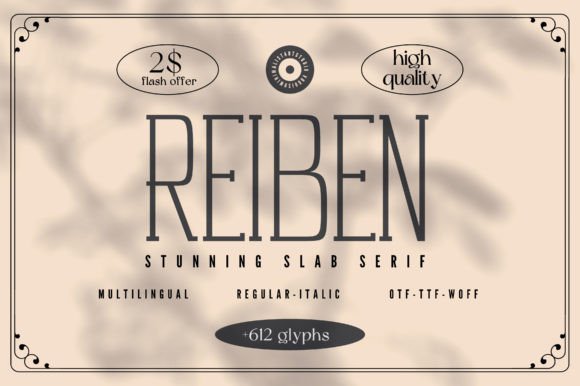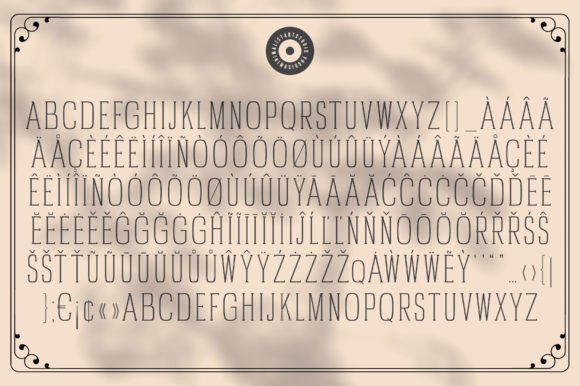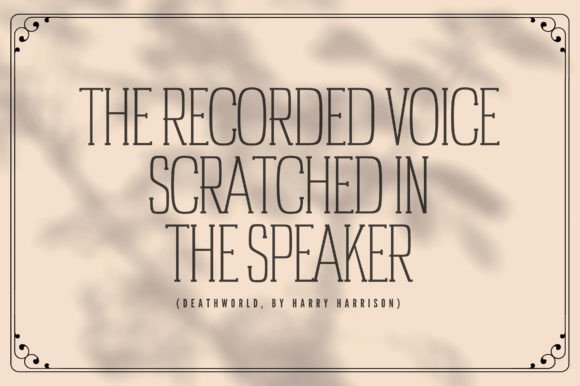
About Reiben
Introducing Reiben – the epitome of elegance and sophistication in a minimalist tall and condensed slab serif font. With over 604 meticulously crafted glyphs, this font is perfect for designers looking to add a touch of refinement to their projects. Available in both italic and regular weights, Reiben is versatile enough to be used in a variety of contexts, from logos and branding to editorial design and beyond. Its clean lines and modern aesthetic make it a must-have for any designer looking to elevate their typography game. With Reiben, simplicity has never looked so chic!!